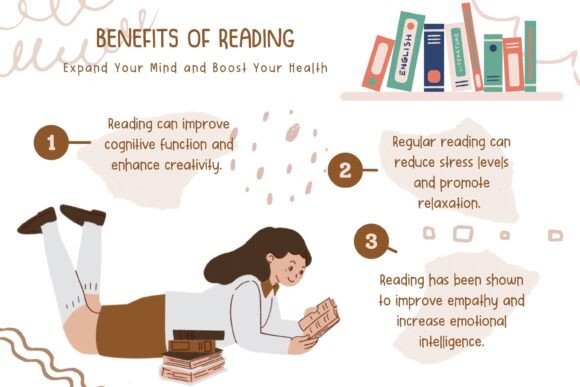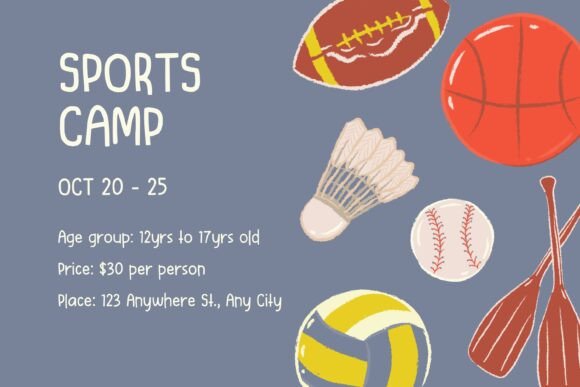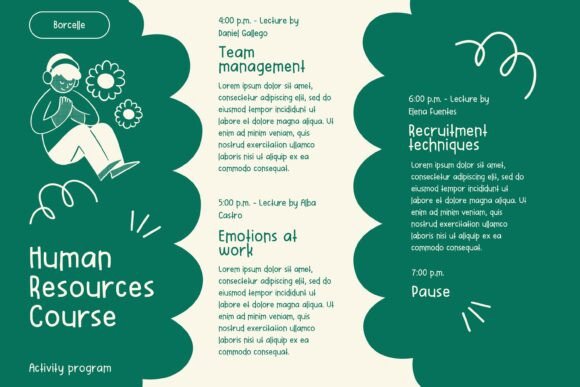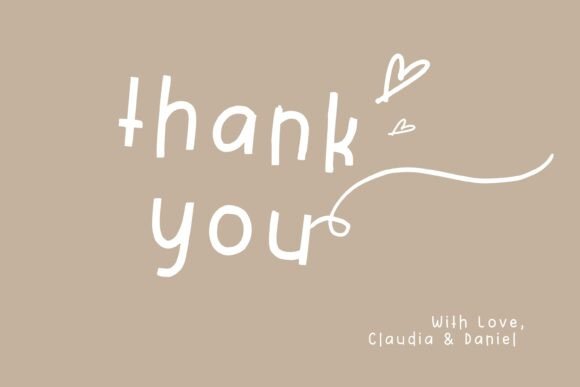
Introducing Ghina Kamil Font: The Perfect Blend of Creativity and Versatility
In the world of typography, fonts play a crucial role in conveying the tone and personality of a design. For crafters, designers, and creatives, finding the right font can make all the difference in bringing their ideas to life. This is where Ghina Kamil Font comes in – an understated yet impactful font that exudes an air of enthusiastic creativity.
The Unique Charm of Ghina Kamil Font
Ghina Kamil Font boasts slightly bold lines that add a unique flair, making it a favorite amongst those engaging in craft-related endeavors. Its bold yet elegant design makes it perfect for a wide range of creative projects, from handmade crafts to digital designs. The font’s subtle boldness gives it a distinctive edge, setting it apart from more traditional fonts.
One of the standout features of Ghina Kamil Font is its versatility. This font can be used in a multitude of design projects, from DIY tutorials to professional branding. Whether you’re creating a handmade card, a blog post, or a social media graphic, Ghina Kamil Font is the ideal choice. Its adaptability allows designers to experiment with different styles, making it an excellent addition to any design toolkit.
The Handmade Charm of Handwriting Bold Fonts
Ghina Kamil Font is a type of handwriting bold font that invites a touch of handmade charm to any work it graces. In an era of digital dominance, handwriting bold fonts like Ghina Kamil offer a refreshing respite. They bring a sense of warmth and personality to a design, making it more relatable and engaging. This font effortlessly blends simplicity with a dash of bold individuality, making it perfect for designers looking to add a personal touch to their work.
Why Designers Love Ghina Kamil Font
So, what makes Ghina Kamil Font a favorite amongst designers? Here are a few reasons:
- Creativity Unleashed: Ghina Kamil Font’s unique design allows designers to express their creativity freely. Its bold lines and elegant curves make it perfect for a wide range of creative projects.
- Easy to Read: Despite its bold design, Ghina Kamil Font is easy to read, making it perfect for body text and headings.
- Versatile: This font can be used in various design projects, from digital designs to handmade crafts.
- Unique Flair: Ghina Kamil Font’s slightly bold lines add a unique flair, setting it apart from more traditional fonts.
Tips for Using Ghina Kamil Font
To make the most of Ghina Kamil Font, here are a few tips:
- Pair it with Other Fonts: Experiment with pairing Ghina Kamil Font with other fonts to create a unique look.
- Use it for Headings: Ghina Kamil Font’s bold design makes it perfect for headings and titles.
- Add a Personal Touch: Use Ghina Kamil Font to add a personal touch to your designs, making them more relatable and engaging.
In conclusion, Ghina Kamil Font is an exceptional font that offers a perfect blend of creativity and versatility. Its unique design, bold lines, and elegant curves make it perfect for a wide range of creative projects. Whether you’re a designer, crafter, or simply someone looking for a font that adds a personal touch, Ghina Kamil Font is an excellent choice. So, why not give it a try and experience the difference it can make in your designs?